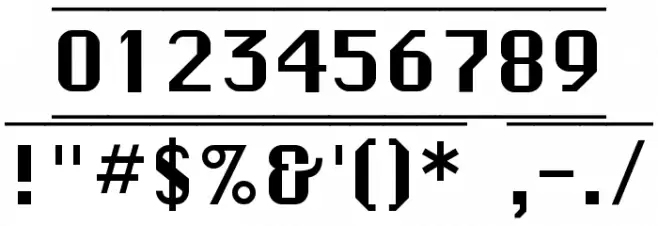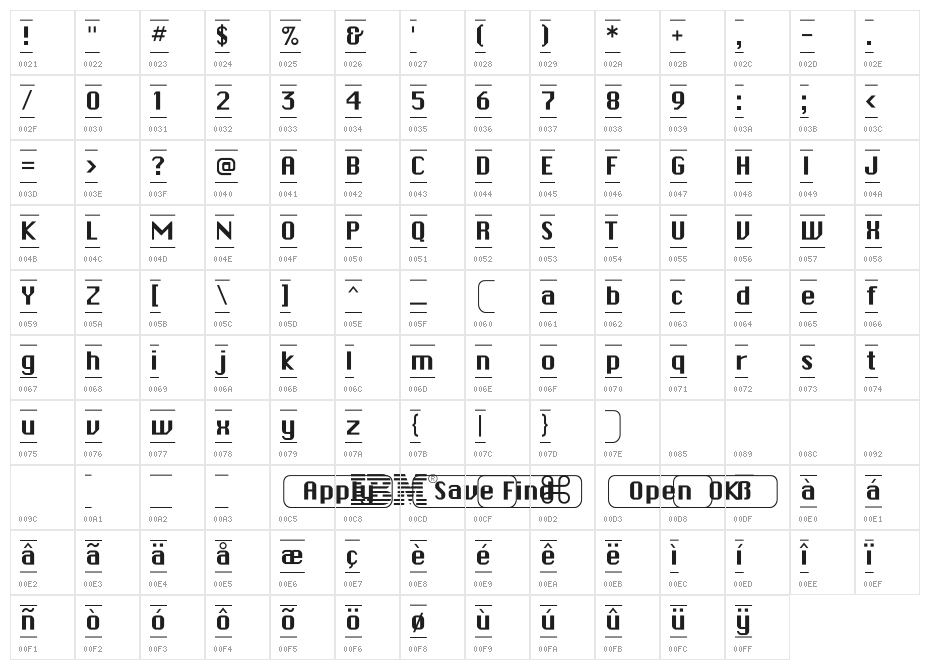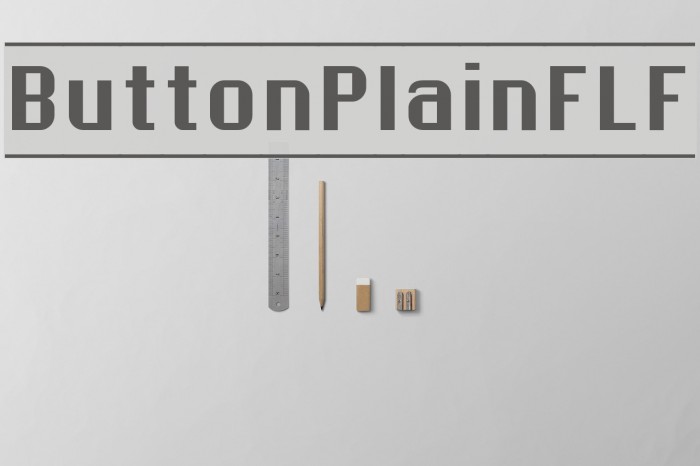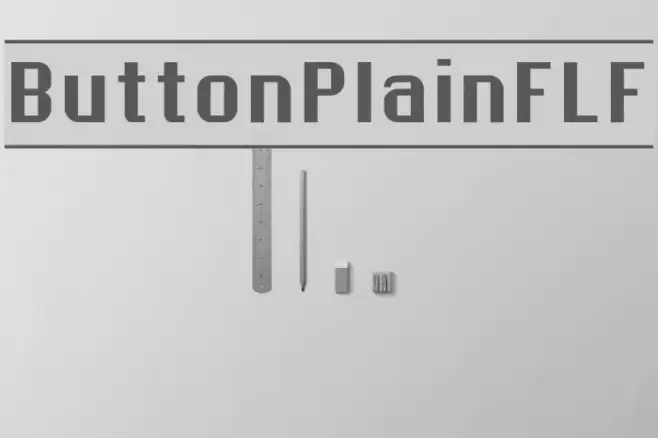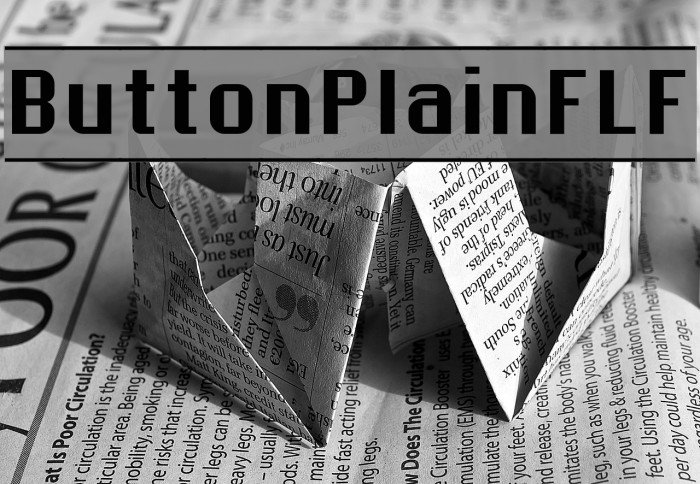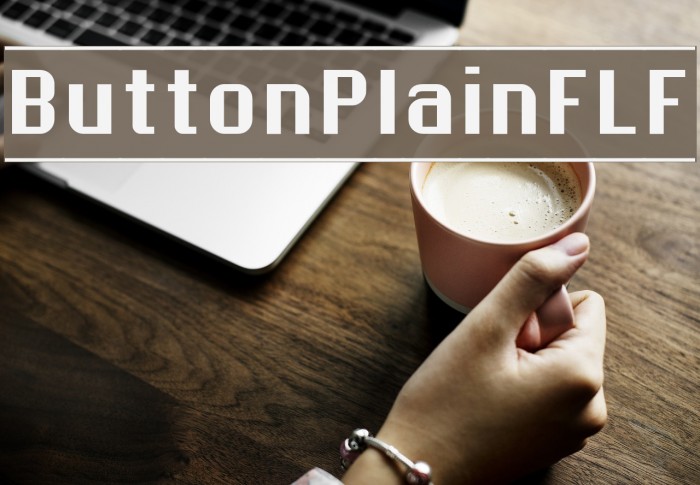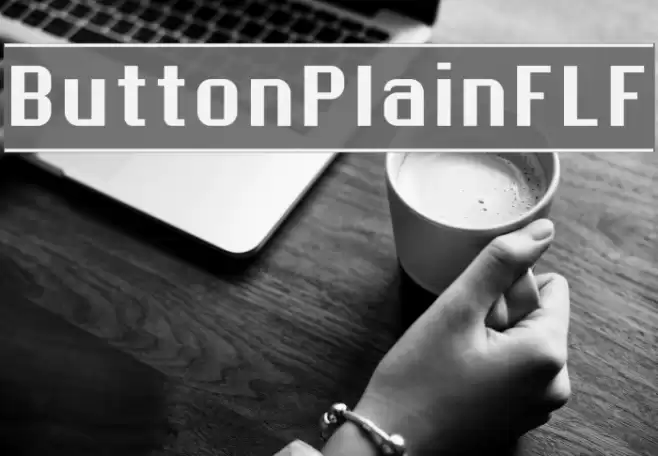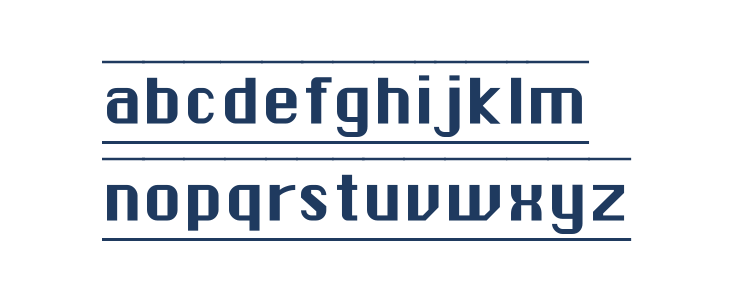
ButtonPlainFLF Font
ButtonPlainFLF Description
This font features a bold and geometric design, characterized by its strong, straight lines and uniform stroke widths. The uppercase letters are particularly striking, with a modern and industrial feel, while the lowercase letters maintain a consistent style that complements the uppercase. The numerals are clear and easy to read, making them suitable for a variety of applications. Special characters are well-defined, adding to the font's versatility. Overall, this font conveys a sense of strength and stability, making it ideal for impactful design projects.
| Use Case | Headlines, Logos, Signage |
| Proposed Projects | Ideal for branding, signage, posters, and any design requiring a strong, modern look. |